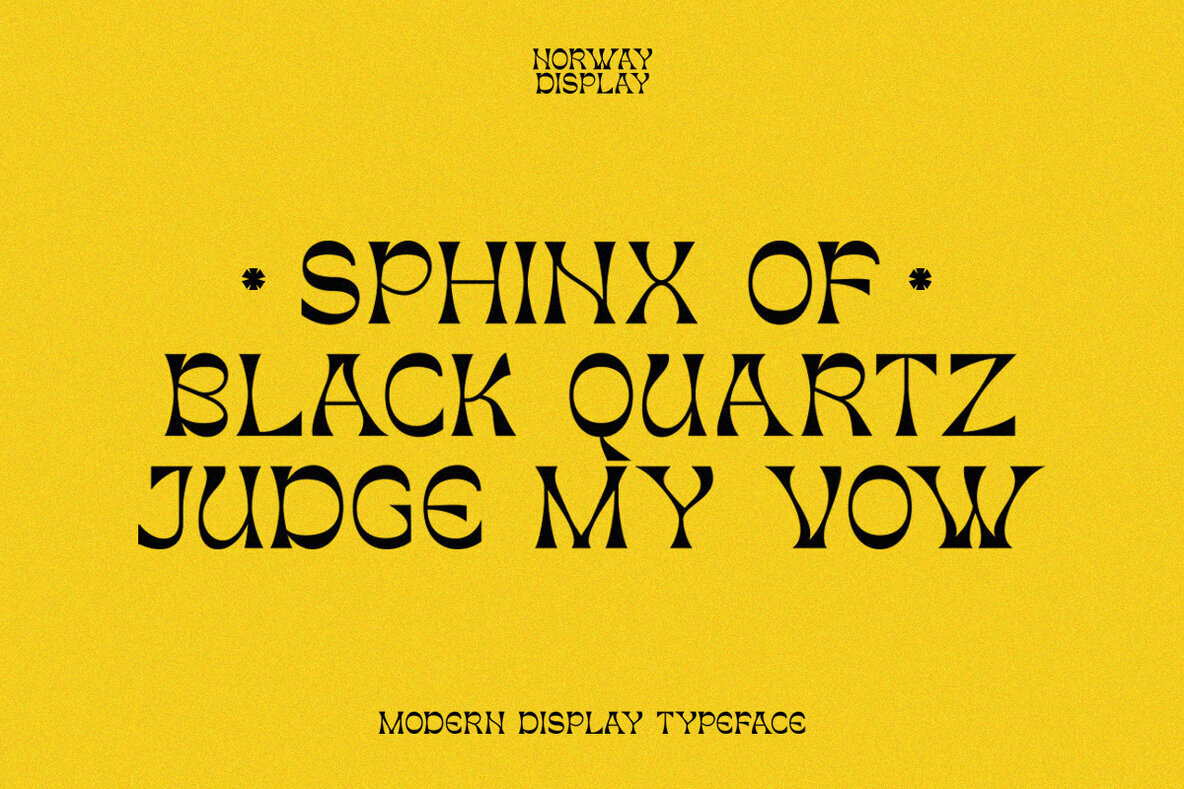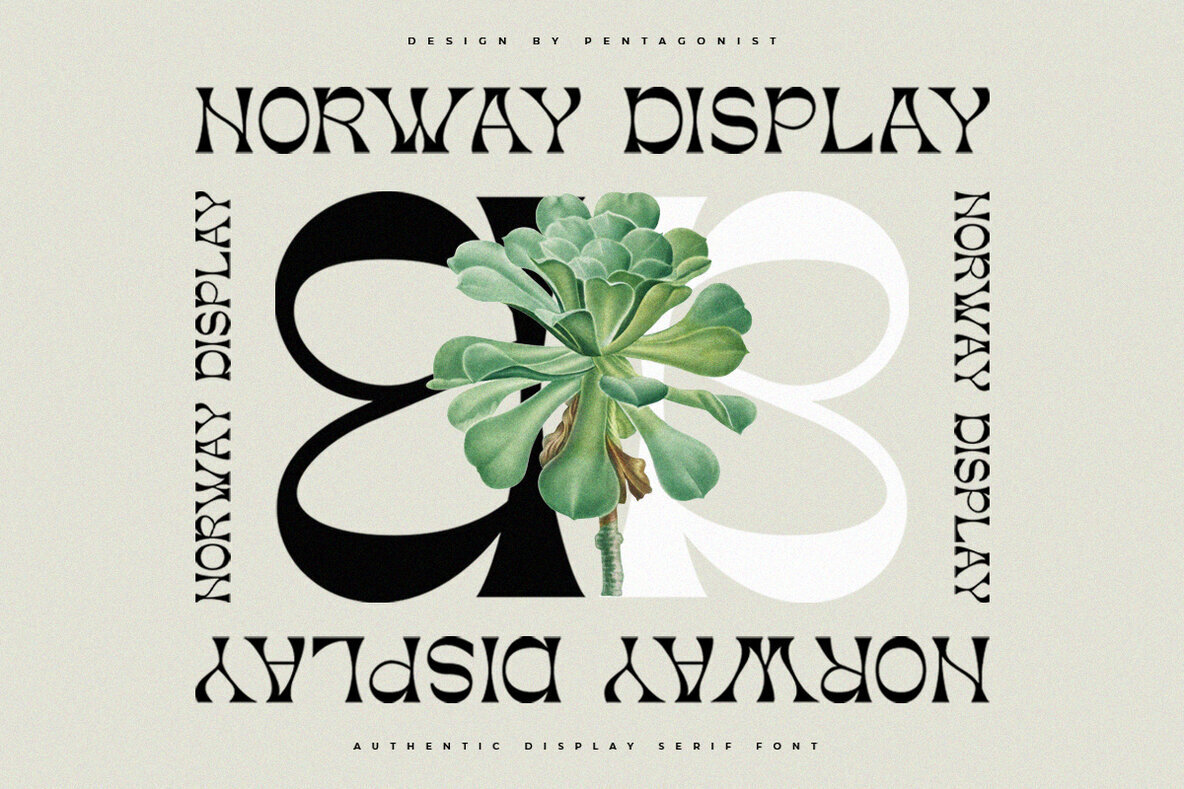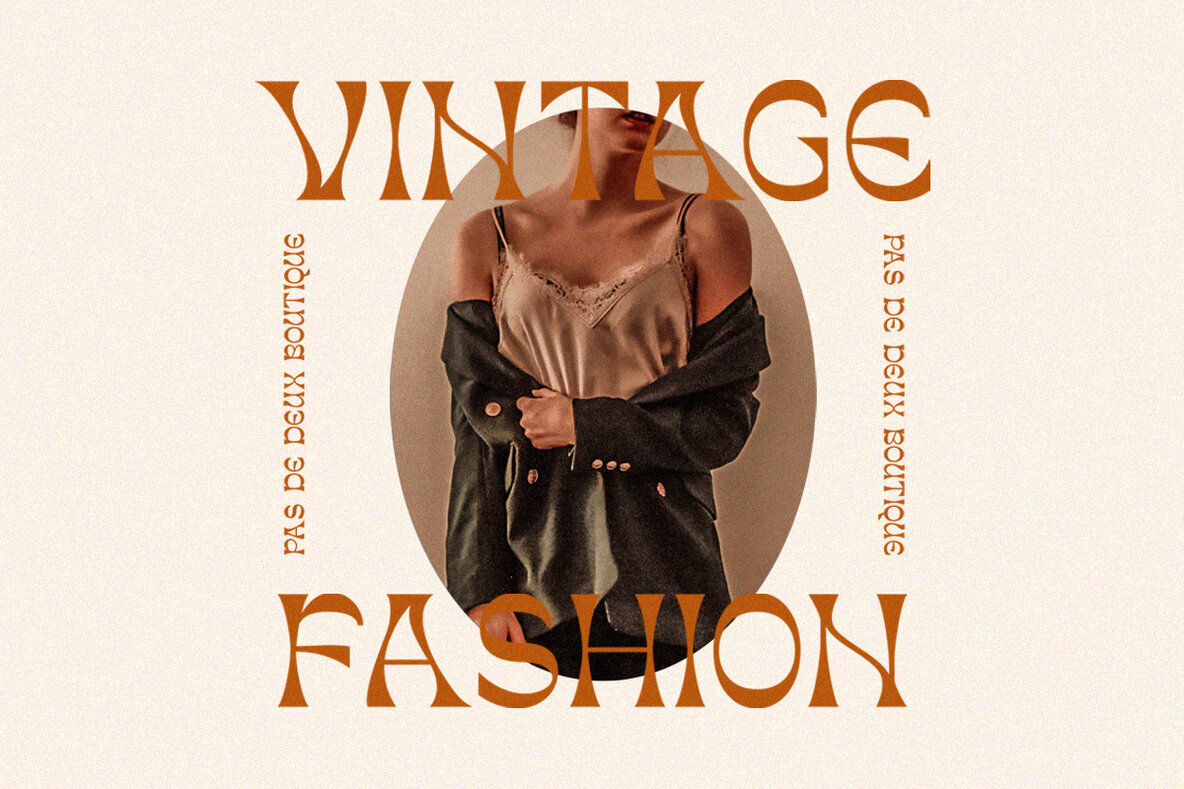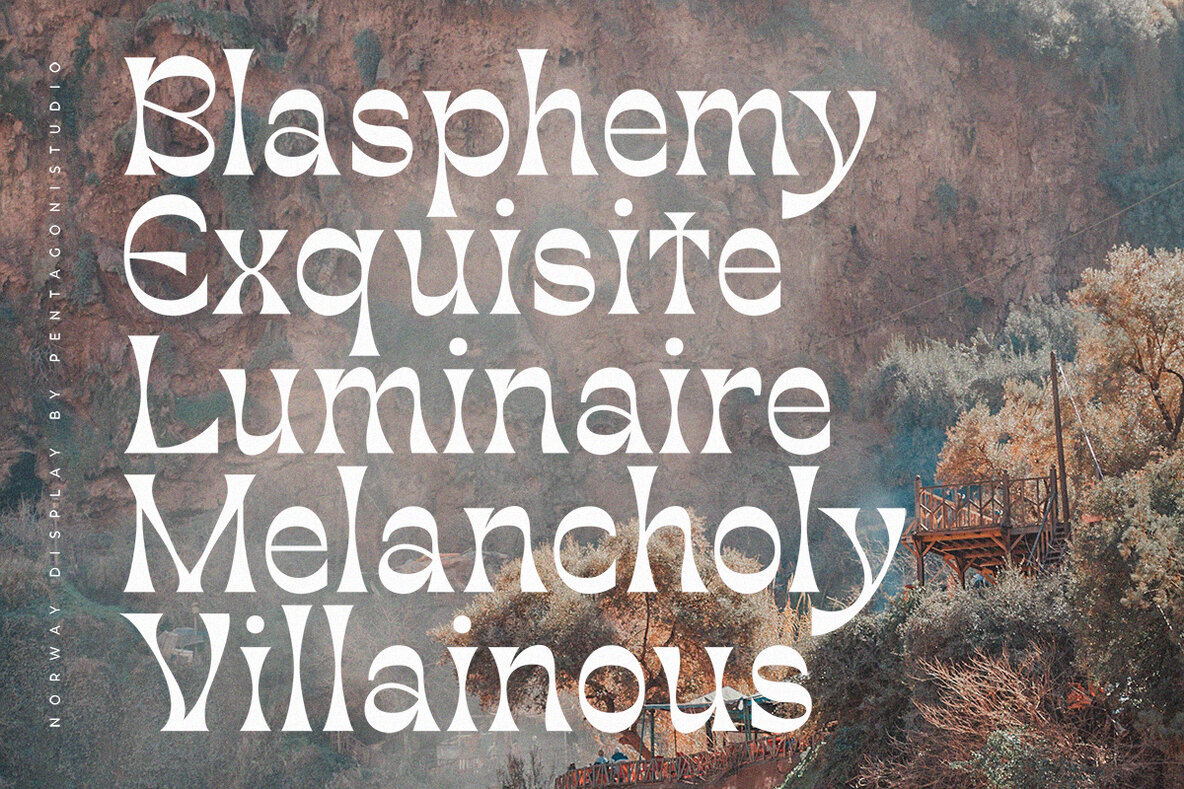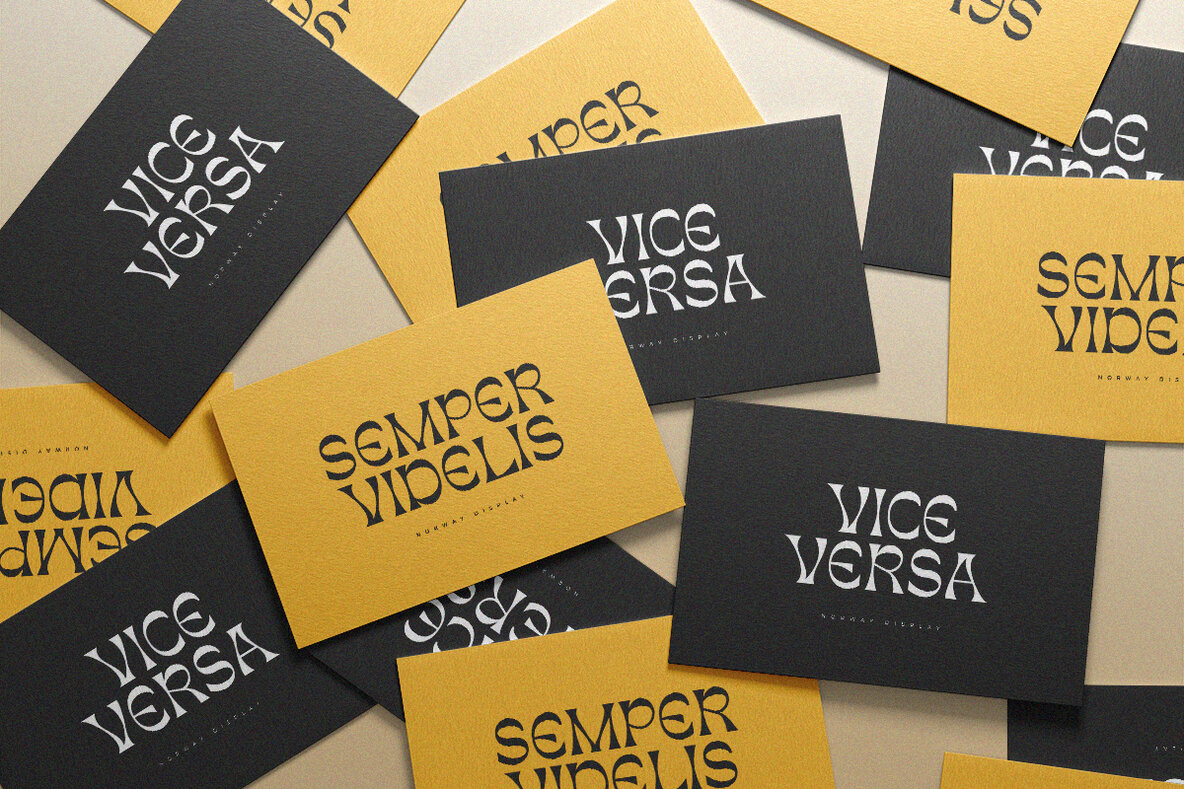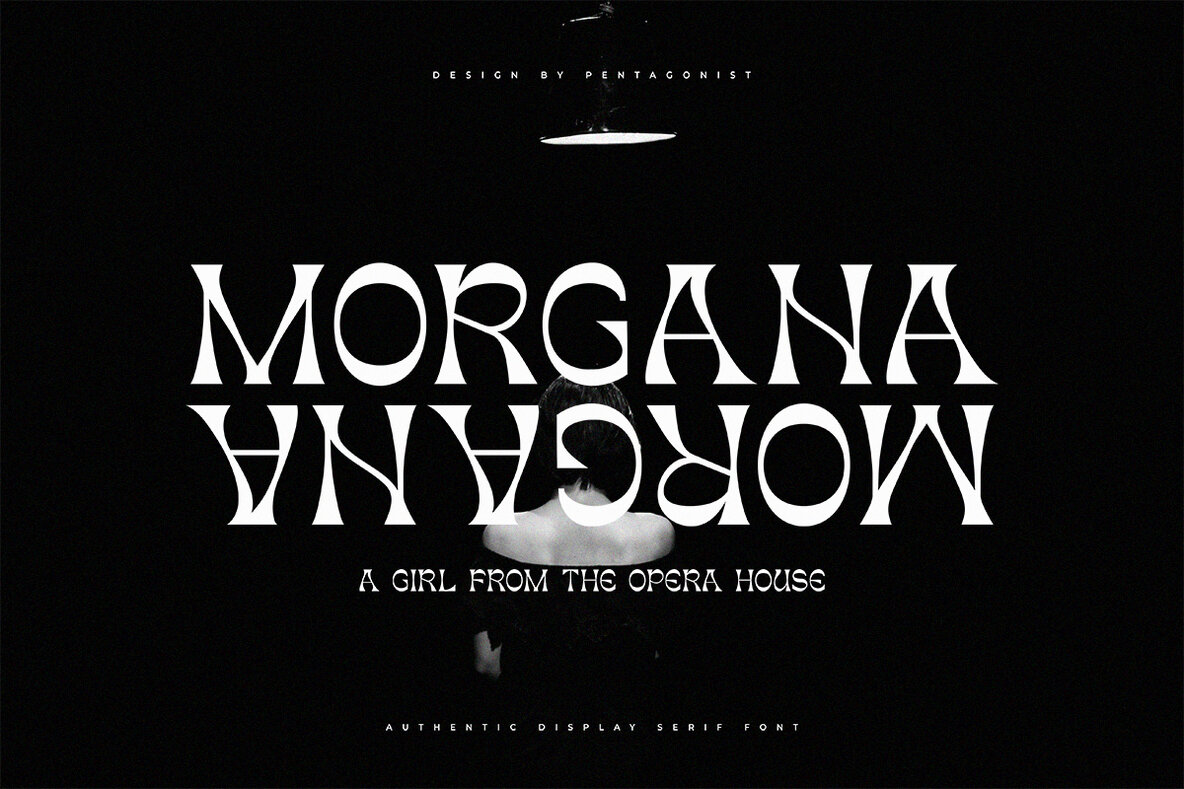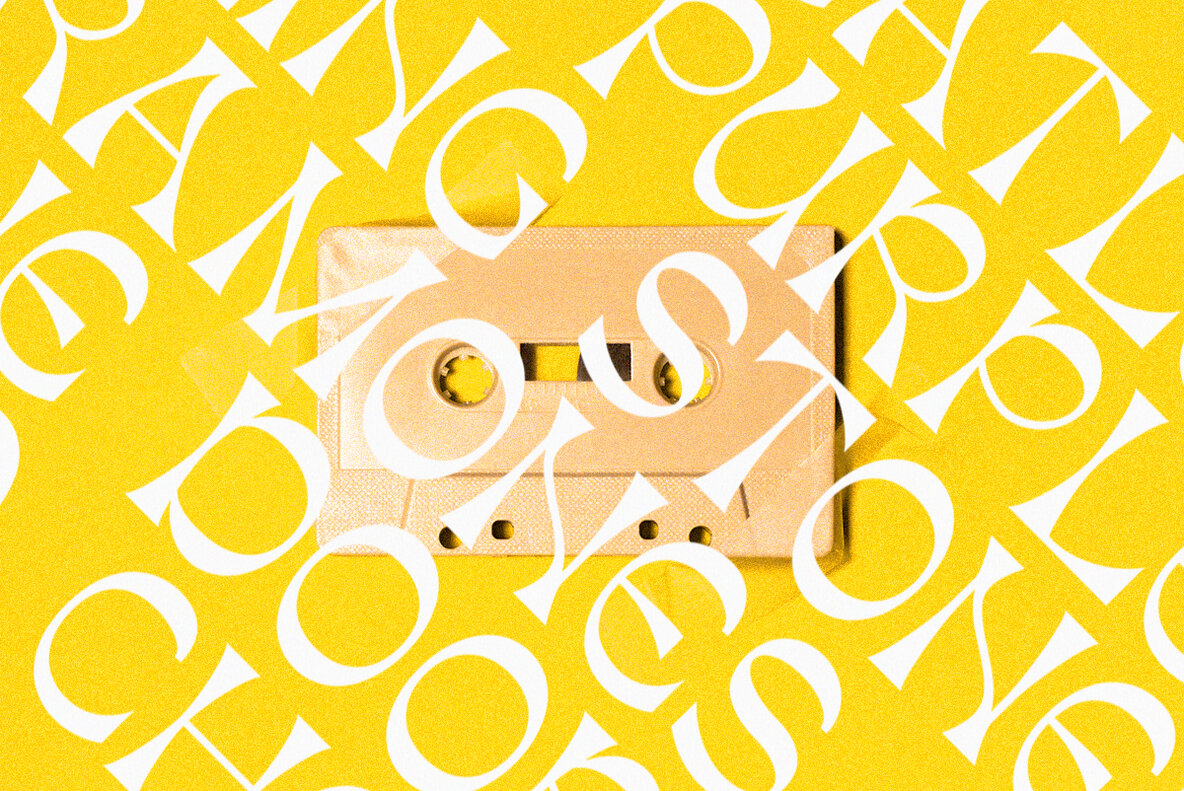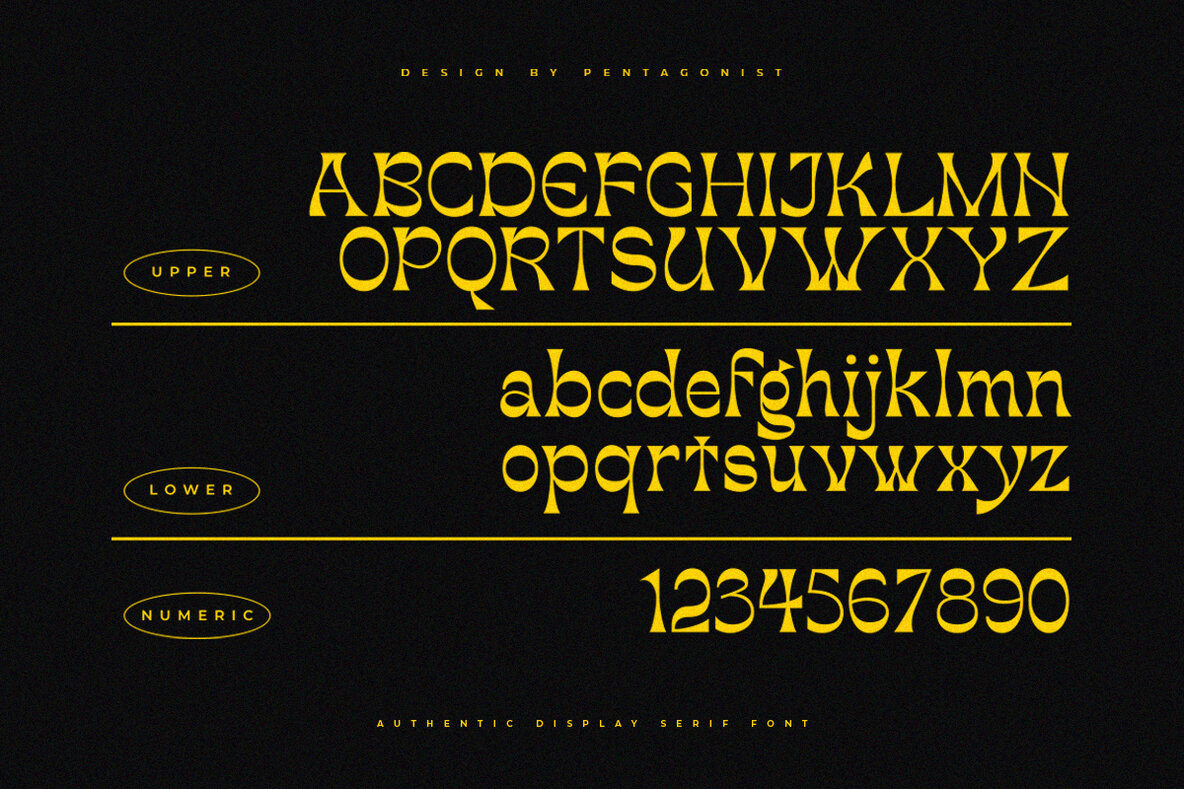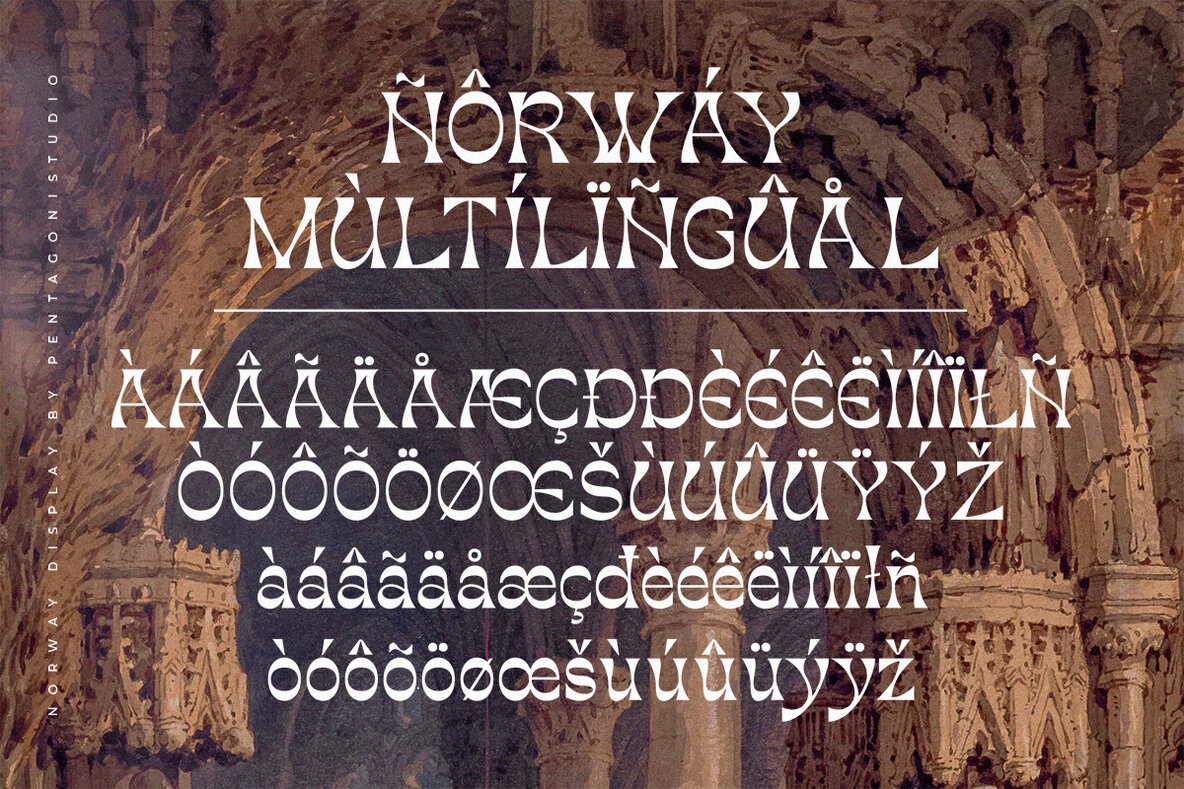
Norway Font
Norway
Dive into the art of typography with Norway, an authentic display font influenced by classic character designs. Ideal for those seeking a blend of tradition and creativity, this font enriches any designer's toolkit with its distinctive features. Features:Norway: Authentic Display Font with Classic Character Inspiration
Experience the elegance and functionality of Norway in your next creative project.